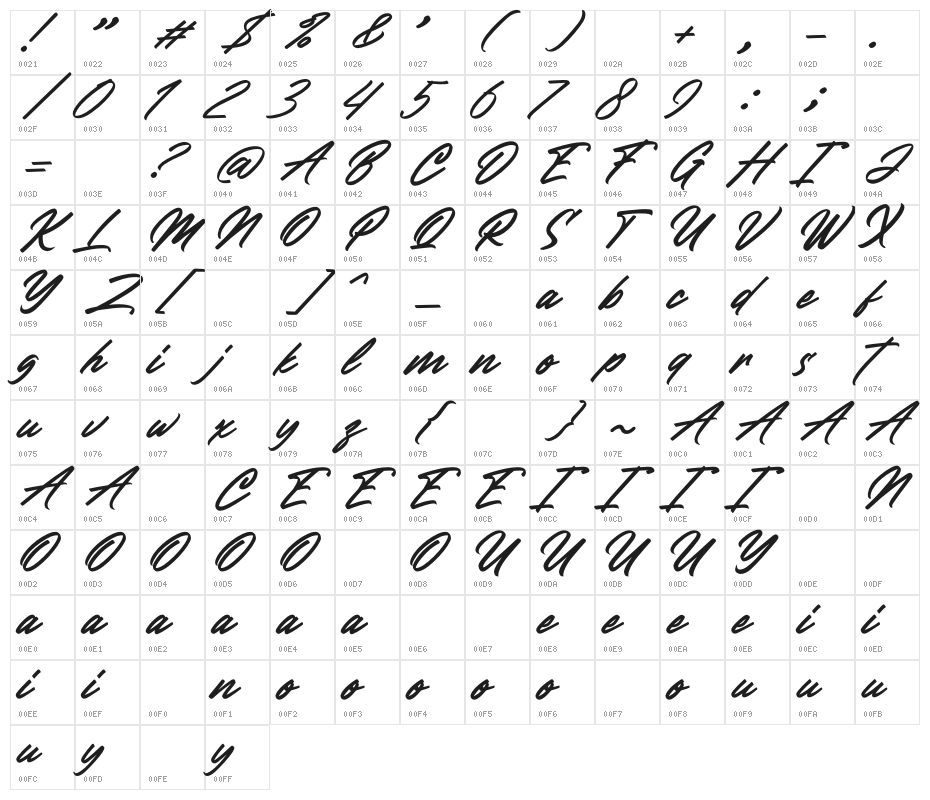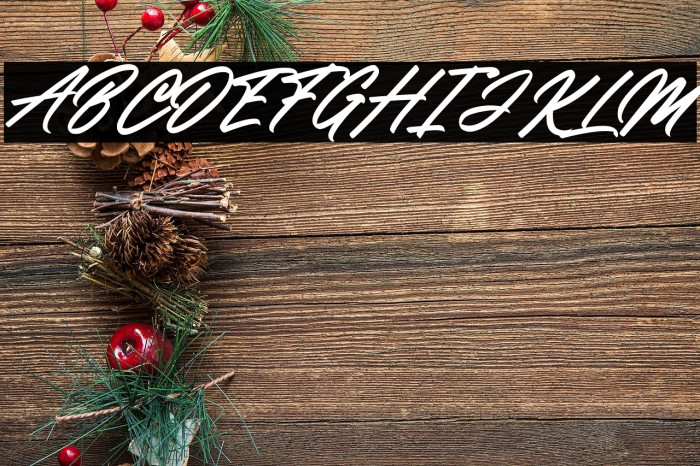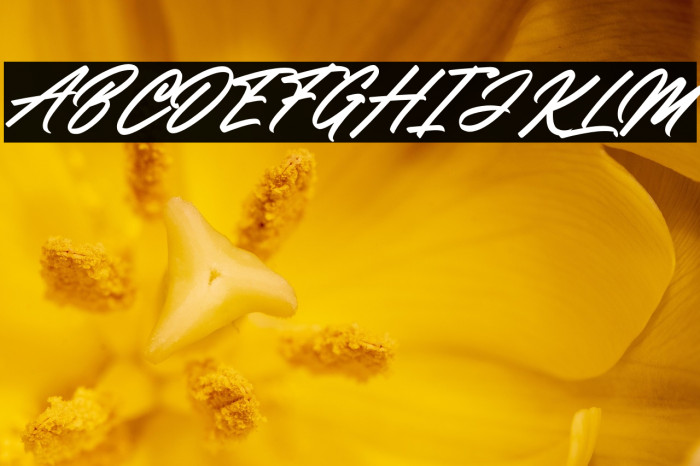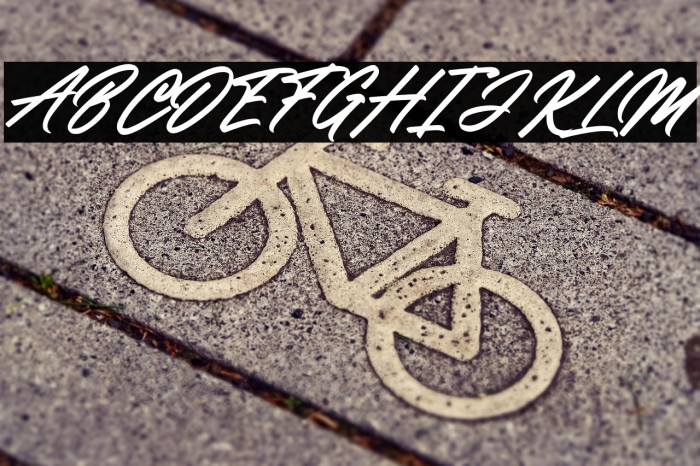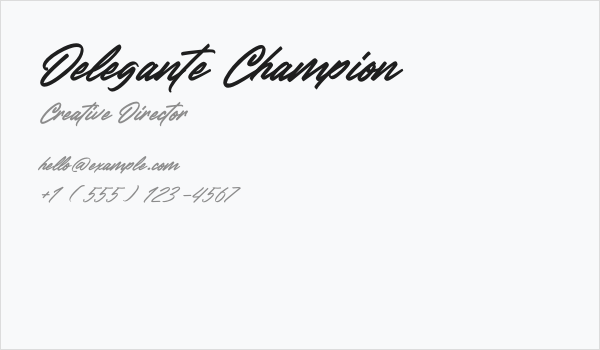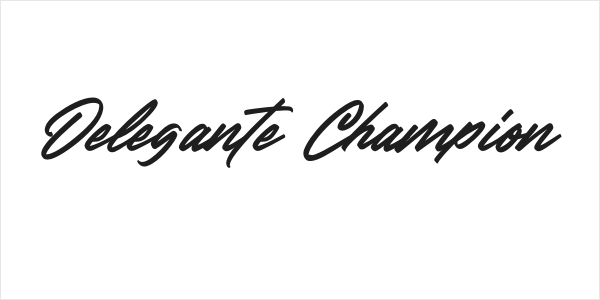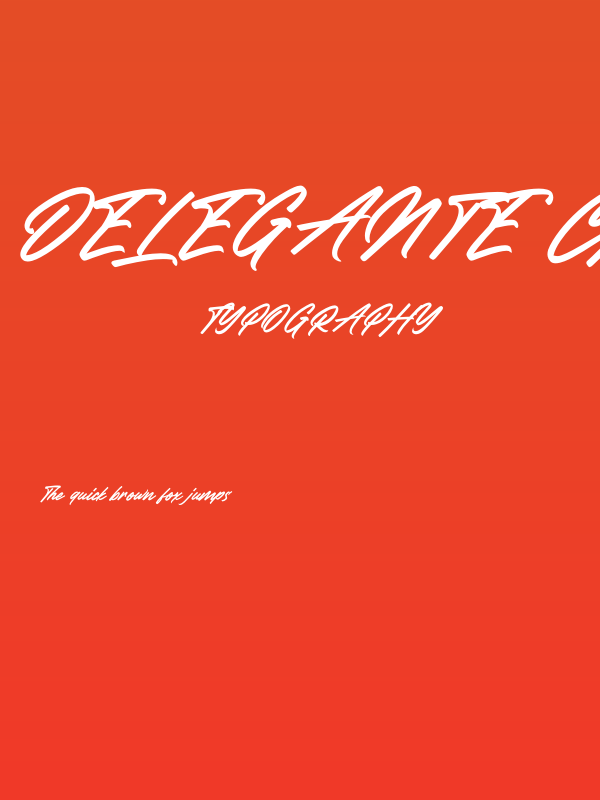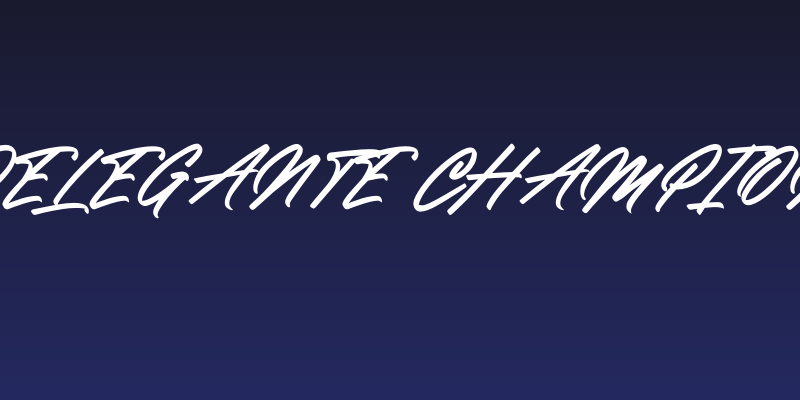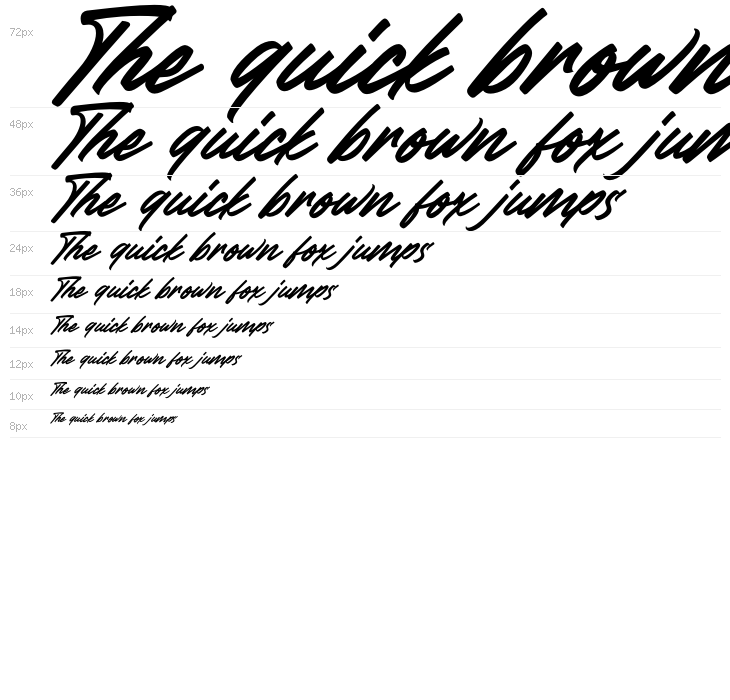
Delegante Champion Font
Delegante Champion Description
This font exudes a dynamic and energetic style, characterized by its flowing, cursive script that mimics natural handwriting. The letters are connected seamlessly, creating a sense of movement and fluidity. The strokes are bold and confident, with a slight slant that adds to its expressive nature. This font is perfect for making a statement, as it combines elegance with a touch of informality. The uppercase and lowercase letters maintain a consistent style, while the numerals and special characters blend harmoniously with the overall design.
| Proposed Projects | Ideal for wedding invitations, greeting cards, branding, and logo design where a personal touch is desired. |